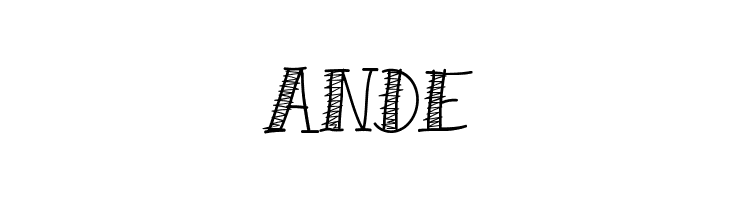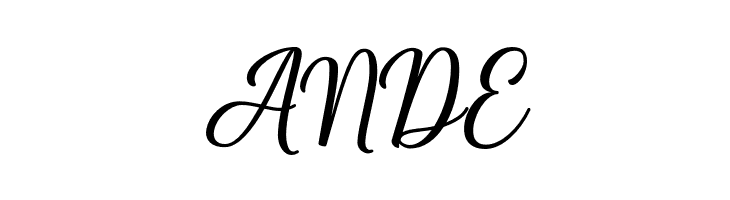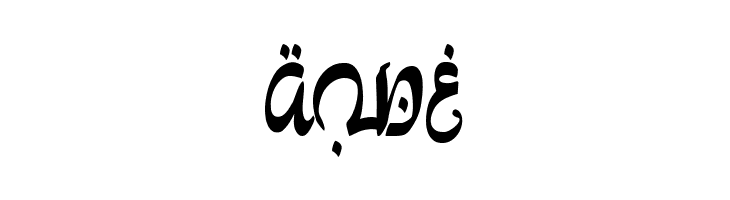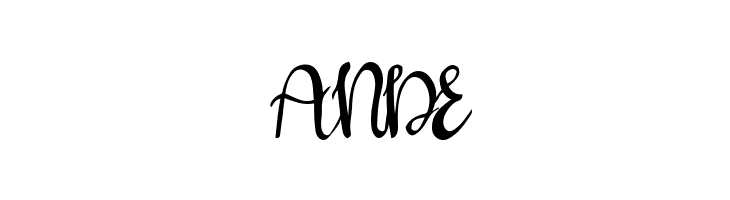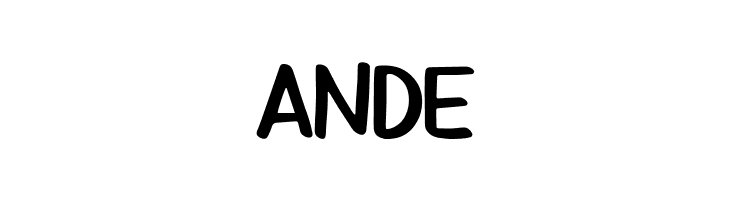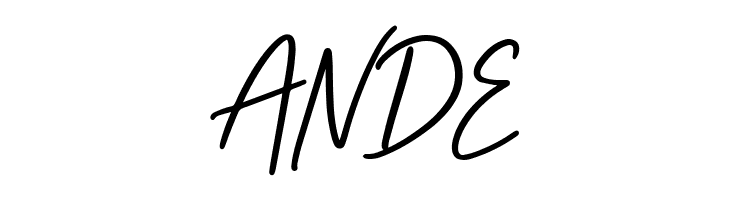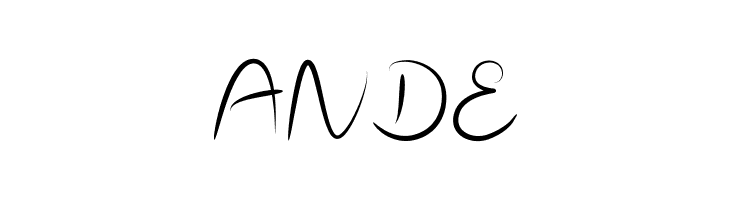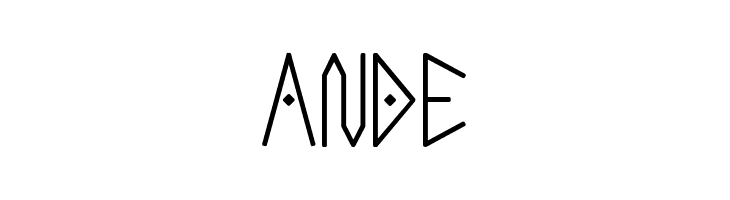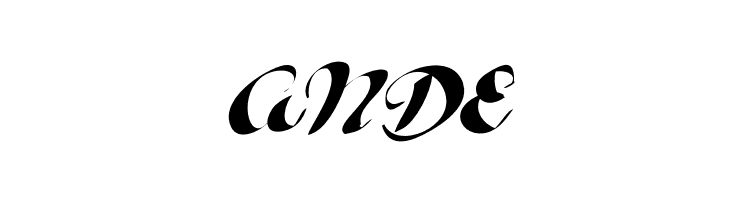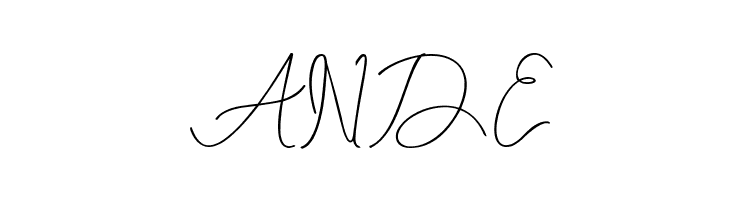
An elegant, flowing script font with intricate loops and swirls.
A chaotic, decorative font with jagged, eroded edges for a dynamic look.
A jagged, irregular font perfect for spooky, Halloween-themed designs.
A lively and flowing script font with elegant, cursive strokes.
An elegant and flowing script font with graceful curves and expressive strokes.
A bold, geometric font with a modern, industrial aesthetic.
A bold, calligraphic font with flowing, decorative curves.
A bold, modern serif font with sharp angles and strong vertical emphasis.
A bold, jagged font with a distressed, hand-drawn appearance.
A geometric, rune-like font with angular lines and diamond accents.
Playful handwritten script font.
A playful, hand-drawn font with textured strokes and a whimsical style.
A graceful script font with fluid, connected strokes and a handwritten style.
A playful, casual handwritten font with dynamic strokes and a fluid style.
Tall, whimsical handwritten script with high contrast and playful curves.
A fluid and elegant script font with smooth, flowing lines and graceful curves.
An artistic and decorative font featuring mythical and abstract creature designs.
A collection of stylized animal and mythical creature silhouettes with tribal and indigenous art influences.
A bold, decorative font with a mechanical, circuit-like design.
A decorative, Gothic-inspired font with intricate, angular designs.
A playful, hollow, and geometric font with a mechanical and futuristic style.
An elegant script font with ornate uppercase and fluid lowercase letters.
A dynamic and expressive handwritten font with fluid, cursive strokes.
A bold, abstract font with futuristic and geometric design elements.
A modern, elegant script font with flowing, cursive characters.
A dynamic, brush-like font with sharp, angular strokes and an artistic flair.
A bold, expressive script font with high contrast and elegant curves.
A playful, rounded handwritten font with a bold and friendly style.
A playful, rounded font with a hand-drawn, casual style.